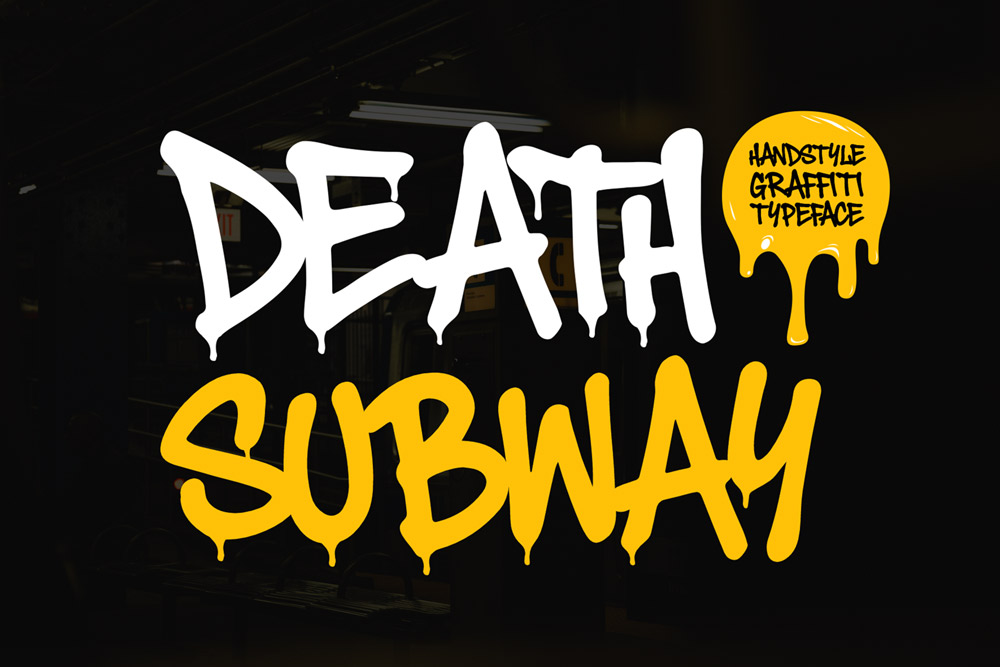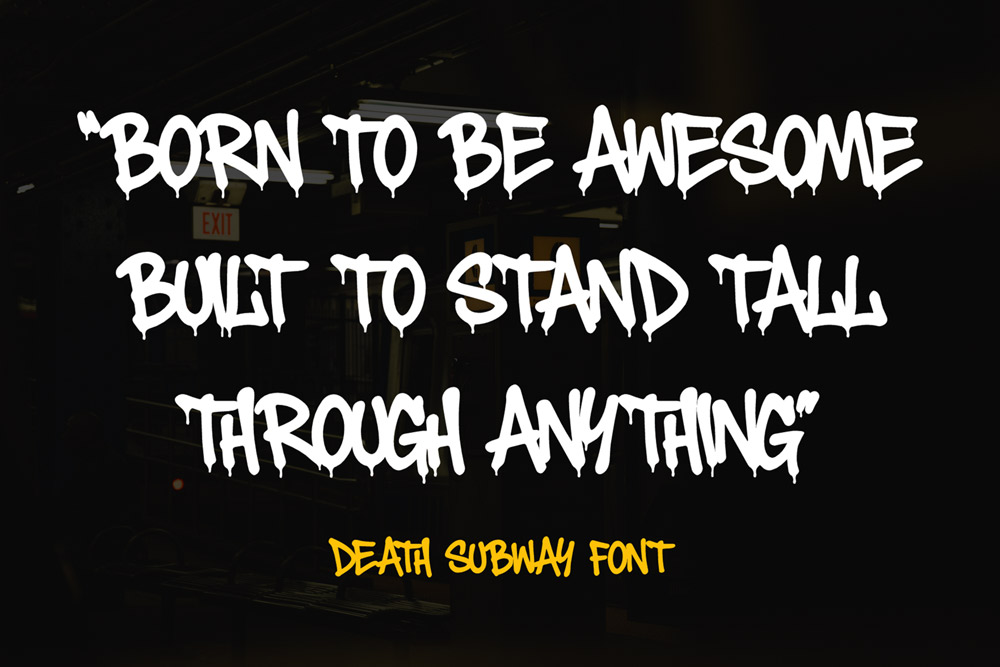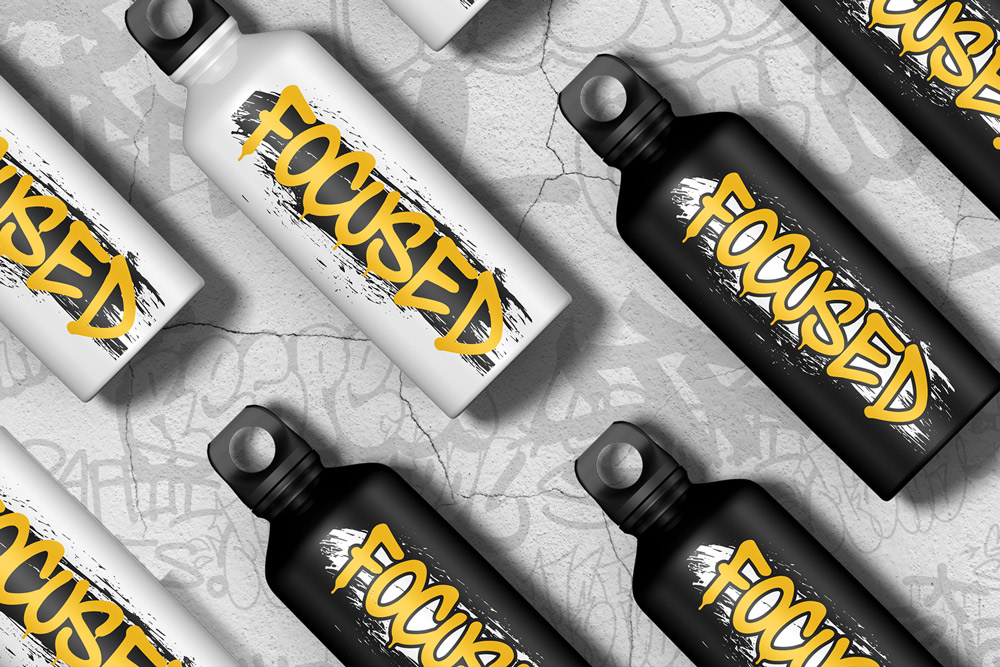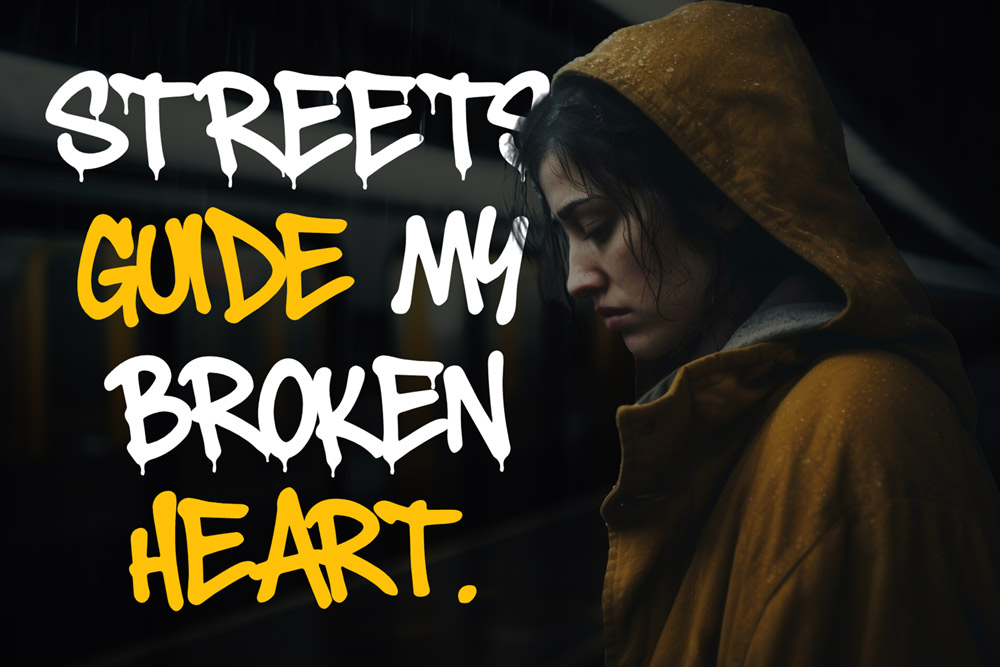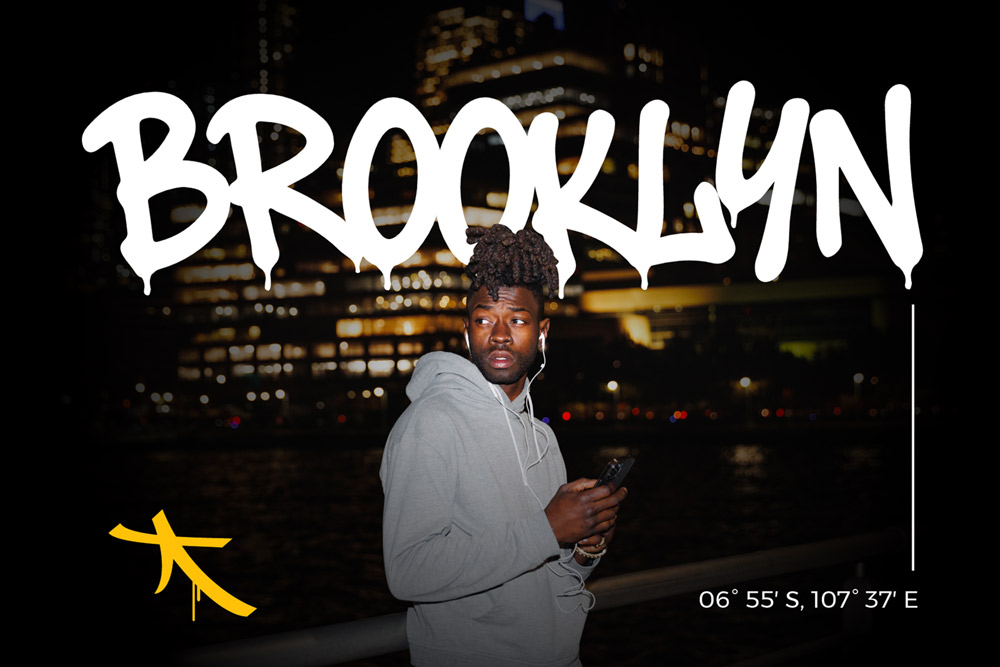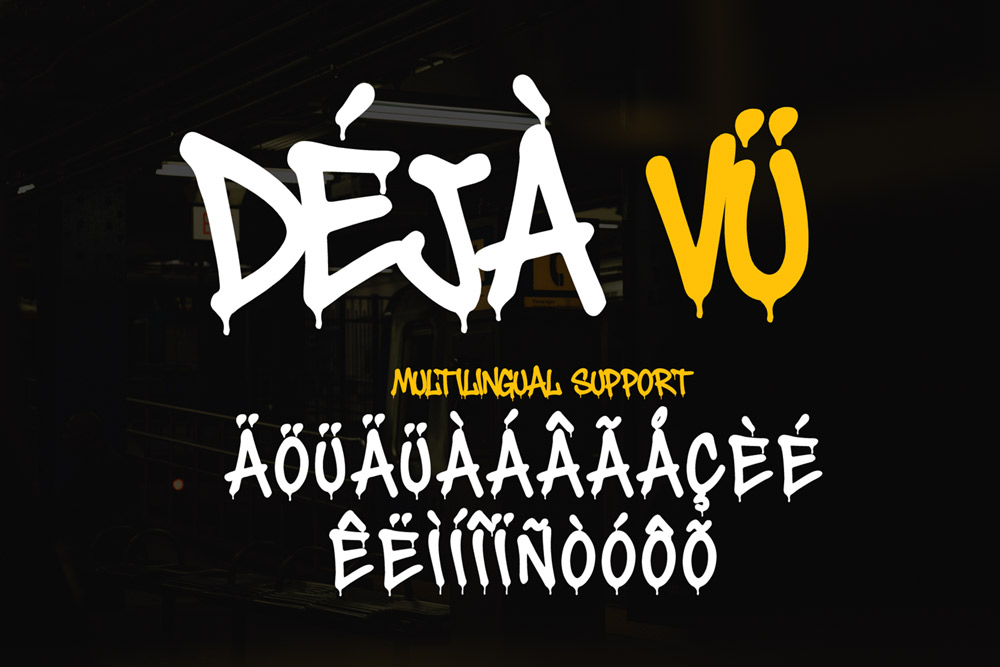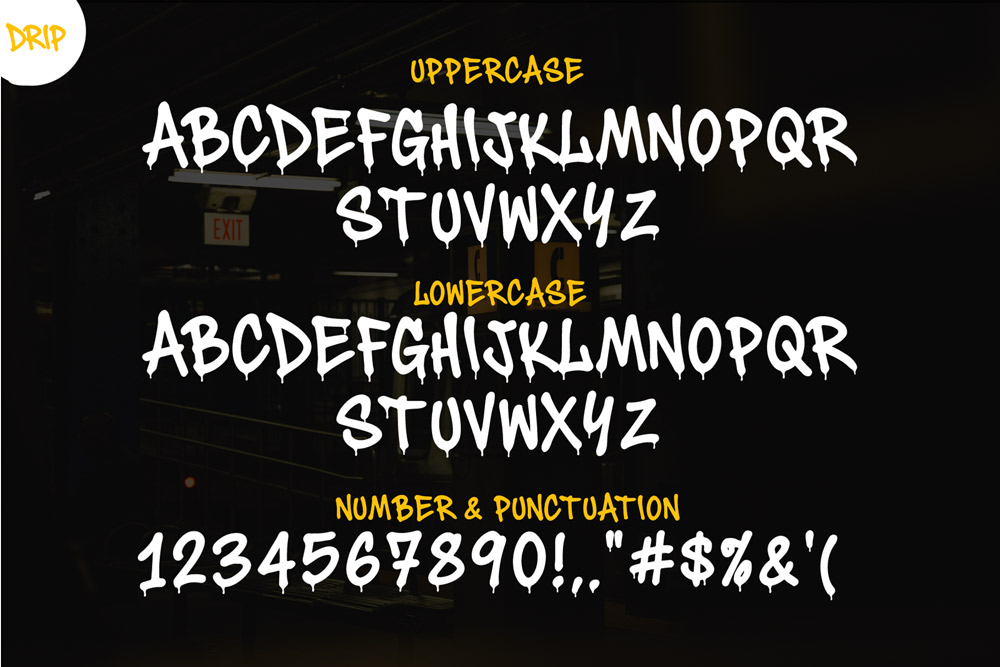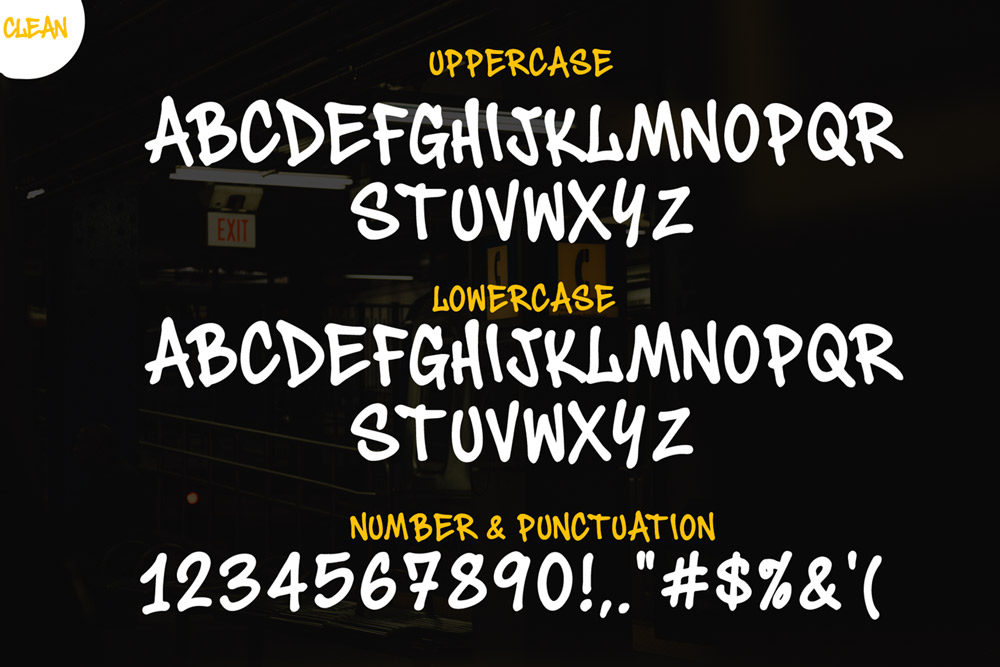
Death Subway – Raw Graffiti Drip Font
Step into the underground world of pure street energy with Death Subway – Raw Graffiti Drip Font, a bold typeface that captures the untamed essence of real graffiti culture. Designed by Cikareotype Studio, this font fuses rebellion, attitude, and creativity into every stroke. If you’ve been searching for a graffiti font that feels authentic, raw, and fearless, Death Subway is here to deliver.
This font is a powerful representation of street typography, perfect for urban designs, music covers, streetwear branding, and digital merch projects. Its raw edges, dripping forms, and strong uppercase structure bring the walls of the city to your screen — straight from the subway tunnels to your design workspace.
Two Styles, One Attitude: Raw & Clean
Death Subway comes with two complete styles, allowing you to switch between rough authenticity and polished legibility depending on your creative direction:
• Death Subway Clean (OTF, TTF, WOFF) – bold, readable, and perfectly balanced for professional design compositions while maintaining its urban attitude.
• Death Subway Drip (OTF, TTF, WOFF) – wild, raw, and dripping with personality — literally. Perfect for when you need that true graffiti drip effect in your lettering.
These two versions make the font incredibly flexible. Whether you’re working on a high-end streetwear label or a grungy underground music poster, Death Subway gives you the visual edge you need to stand out.
A New Standard for Urban Graffiti Fonts
Death Subway isn’t just another graffiti font — it’s an expression of street rebellion and design freedom. Every curve and edge was hand-crafted to preserve the organic rhythm of spray-paint lettering found on real city walls. Its flow imitates marker lines and paint drips, yet it remains clean enough for digital and print use.
This raw graffiti drip font was built with versatility in mind. Use the clean version for logos, headlines, and social media graphics, or go full street with the drip style for murals, apparel, and merchandise. Both versions are crafted with perfect kerning, spacing, and OpenType quality, giving you a smooth experience in any design software — from Adobe Illustrator and Photoshop to Procreate and Canva.
Death Subway is built for those who thrive in the visual chaos of the streets — urban designers, streetwear creators, digital artists, and brand owners who want to make an impression.
Here’s where this font truly shines:
• Streetwear Logos & Clothing Brands – Turn simple words into gritty graffiti marks that define your collection’s identity.
• Music & Album Covers – Perfect for hip-hop, punk, metal, and underground scenes.
• Skate & BMX Graphics – Apply it to stickers, boards, or banners to embody rebellious energy.
• Posters & Event Promotions – Use it to announce street events, concerts, or festivals with a bang.
• Merch Designs – Great for T-shirts, hoodies, mugs, tote bags, or digital artwork collections.
Death Subway instantly transforms any project into a bold graffiti statement. Its dripping version gives that wet paint realism, while the clean version ensures strong readability and modern impact.
2 Complete Styles Included: Clean & Drip
Uppercase Characters Only – strong, impactful shapes for bold compositions
Multilingual Support – cover major European languages, perfect for global design projects
Street-Authentic Design – inspired by subway graffiti, dripping ink, and raw tagging culture